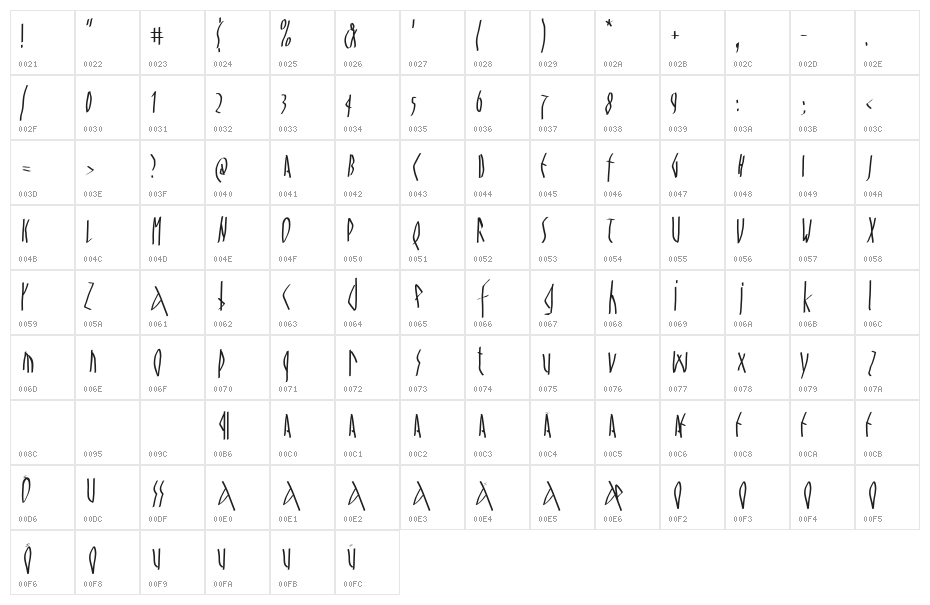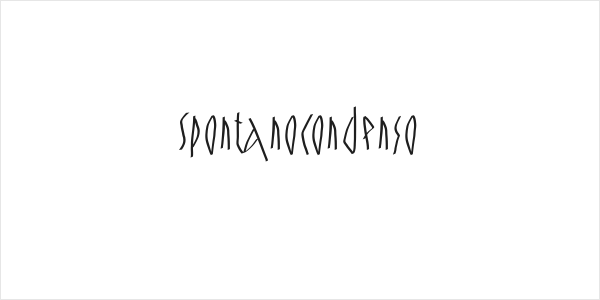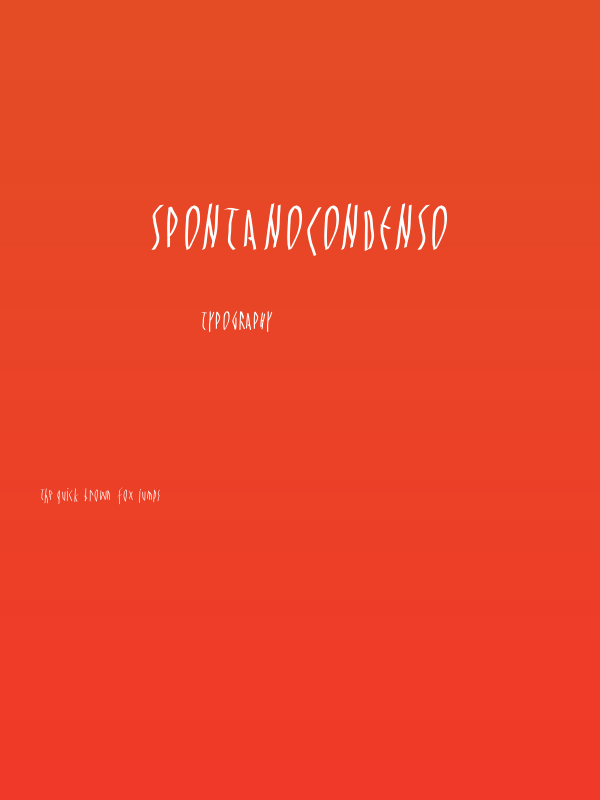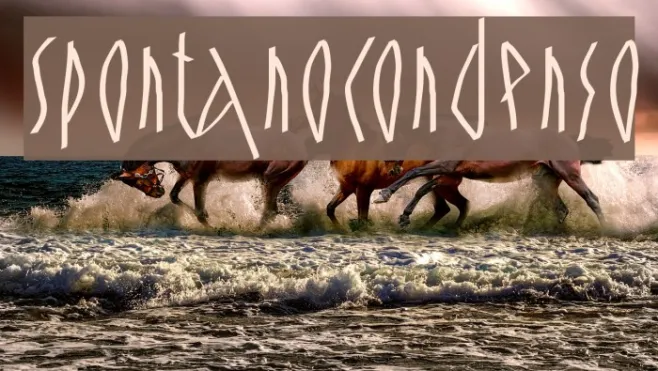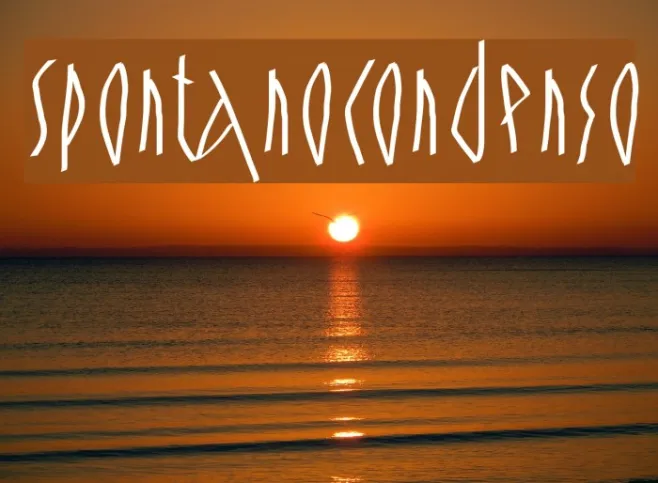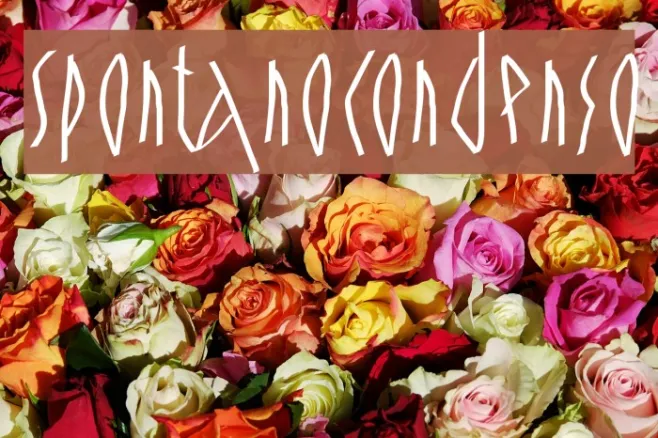
SpontanoCondenso Font
SpontanoCondenso Description
This font features a distinctively tall and narrow design, characterized by its elongated letterforms and sharp, angular strokes. The uppercase and lowercase letters maintain a consistent vertical emphasis, creating a sense of height and elegance. The numerals and special characters follow the same stylistic approach, ensuring uniformity across all glyphs. The font's unique style is both modern and artistic, making it suitable for creative and expressive projects. Its condensed width allows for efficient use of space, making it ideal for headlines and titles where impact is essential.
| Proposed Projects | Ideal for posters, album covers, branding, and editorial design where a striking and modern look is desired. |